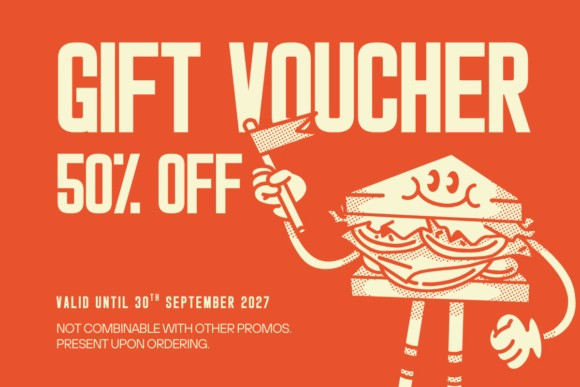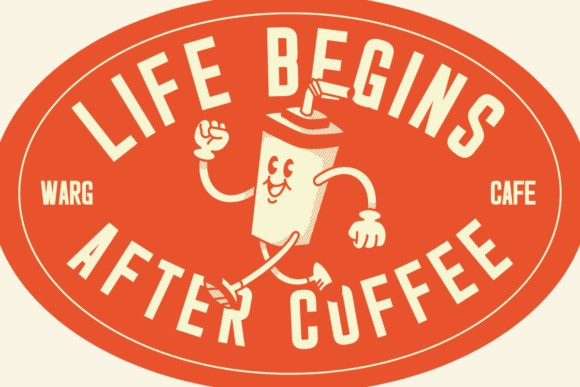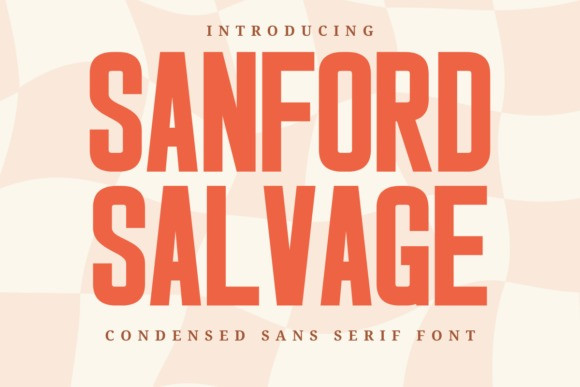
Sanford Salvage Font
Sanford Salvage Font is a bold, striking condensed sans serif typeface imbued with a distinct retro and vintage aesthetic. Its robust, thick characters and strong presence hark back to classic advertising and signage, making it the perfect font for designs that require character and a nostalgic feel. Despite its vintage inspiration, its clean lines ensure excellent readability and versatility across modern platforms.
This font is an absolute gem for graphic designers specializing in packaging, classic logo design, café signage, and throwback branding projects. For the Print on Demand (POD) entrepreneur, Sanford Salvage is optimized to be a bestseller; its weighty strokes print flawlessly on apparel, posters, and merchandise, giving custom tees and mugs an immediate retro cool factor. Furthermore, crafters will find this font extremely reliable for cutting machines like Cricut and Silhouette. The solid, uncomplicated shapes make vinyl cutting and weeding simple and efficient, ideal for crafting decals, labels, and home decor with a vintage touch.
Sanford Salvage includes standard uppercase characters, numerals, punctuation, and multilingual support, providing the necessary tools to inject bold, nostalgic energy into your next creative endeavor